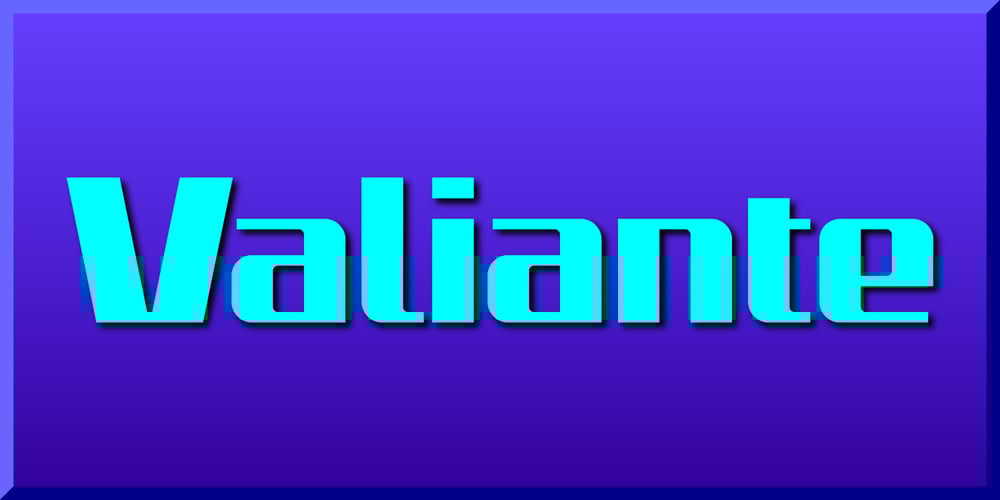
Valiante
Valiante font
Valiante Font Family was designed by Gerald Gallo and published by Gerald Gallo. Valiante contains 1 styles and family package options. Valiante is a bold contemporary sans serif font. It is ideal for headlines, titles, branding, small blocks of text or wherever a fresh new look is desired.